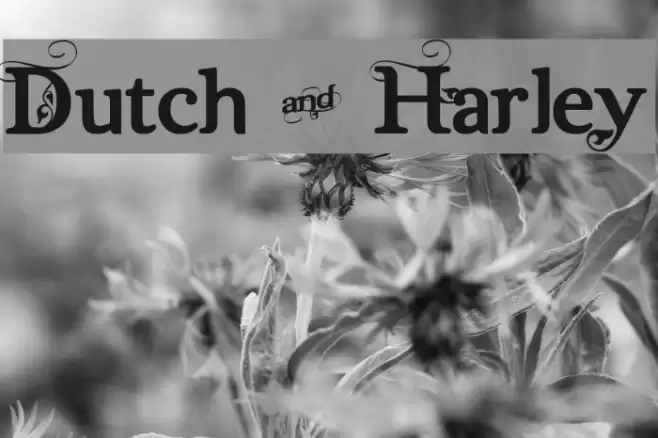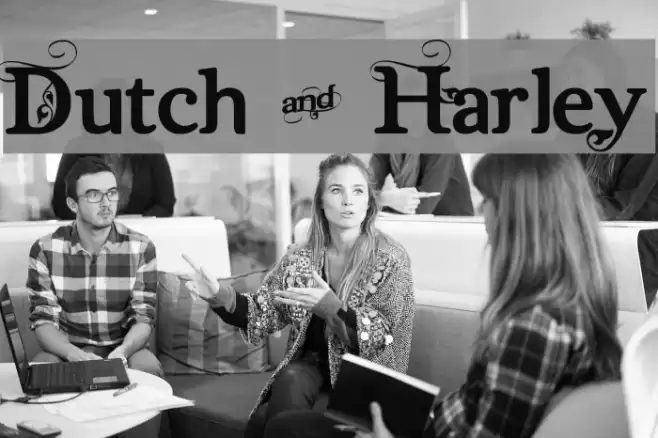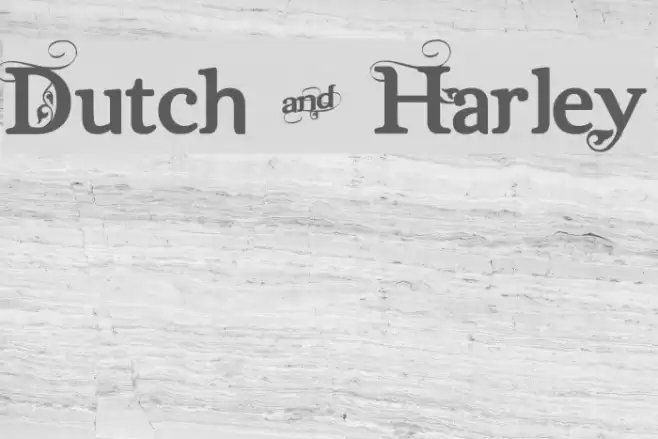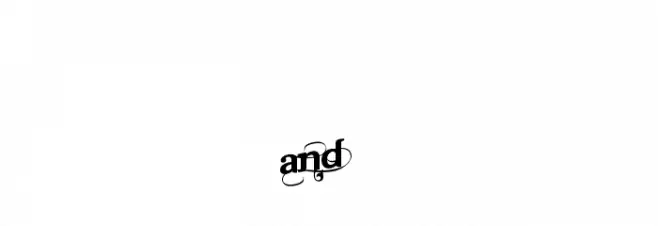
Dutch & Harley Font
Dutch & Harley Description
This font features a bold and decorative style with intricate swirls and flourishes that extend from certain characters, adding an ornate and elegant touch. The letters are well-defined with a strong presence, making it suitable for attention-grabbing designs. The uppercase letters are particularly embellished, while the lowercase letters maintain a consistent style with subtle decorative elements. The overall appearance is both classic and artistic, making it ideal for projects that require a touch of sophistication and flair.
A bold, decorative font with ornate swirls and flourishes from Uncategorized fonts.
- Proposed Projects: Ideal for wedding invitations, luxury branding, book covers, and artistic posters.
- Overall Style: Classic
- Use Case: Logos, Headlines, Decorative text